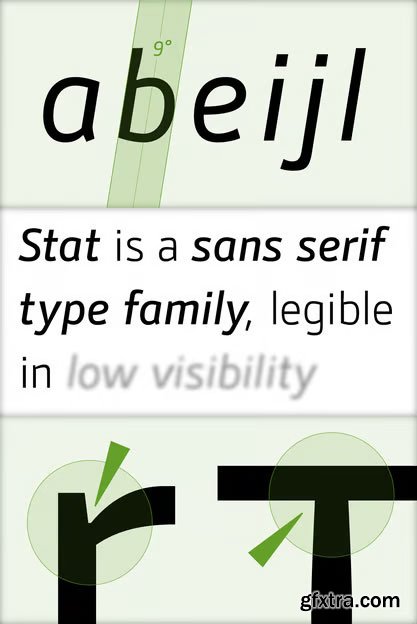
- Stat Text Pro retains many characteristics of its display counterpart, while giving readability a greater importance. It has simpler letter shape details which enable it to accomplish a constant rhythm whiles being read. Its main intended use is to accompany Stat Display Pro in places where longer passages of text are needed. In this way the visual character of the composition is retained and at the same time readability of text is given attention. As its display counterpart it has a large character set with multiple weights, which are defined by optimal size ratio, wide aperture and balanced counters. It contains nearly 700 glyphs, including diacritics, ligatures, small caps, old–style figures, arrows and more. This enables it to achieve wide language support. It consists of four weights (Light, Regular, Medium, Bold) which are accompanied by their corresponding obliques. Stat Text Pro type family has higher than average x height (72% of cap height) which is accompanied by matching ascender and descender size ratios. The development of the type family was based on research in legibility to achieve highly legible letter shapes, while not diminishing their visual character.